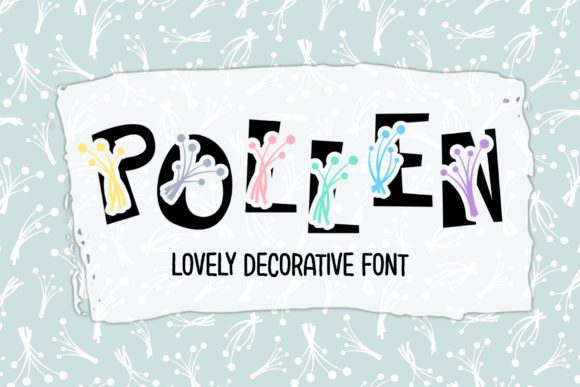
Introducing Pollen, the font that will make your designs burst with life!
Step into a world of creativity with Pollen, a decorative font that dances across the page like pollen carried by a gentle breeze. Its delicate swirls and playful curves are sure to add a touch of whimsy to any project.
Whether you're crafting logos that pop, branding that captivates, or social media posts that bloom with personality, Pollen is your go-to font for making a lasting impression. Its versatility knows no bounds, making it the perfect choice for crafty DIY projects and everything in between.
But Pollen isn't just another pretty face. This enchanting font has a secret power: it transforms ordinary words into captivating stories and makes even the simplest designs shine with brilliance.